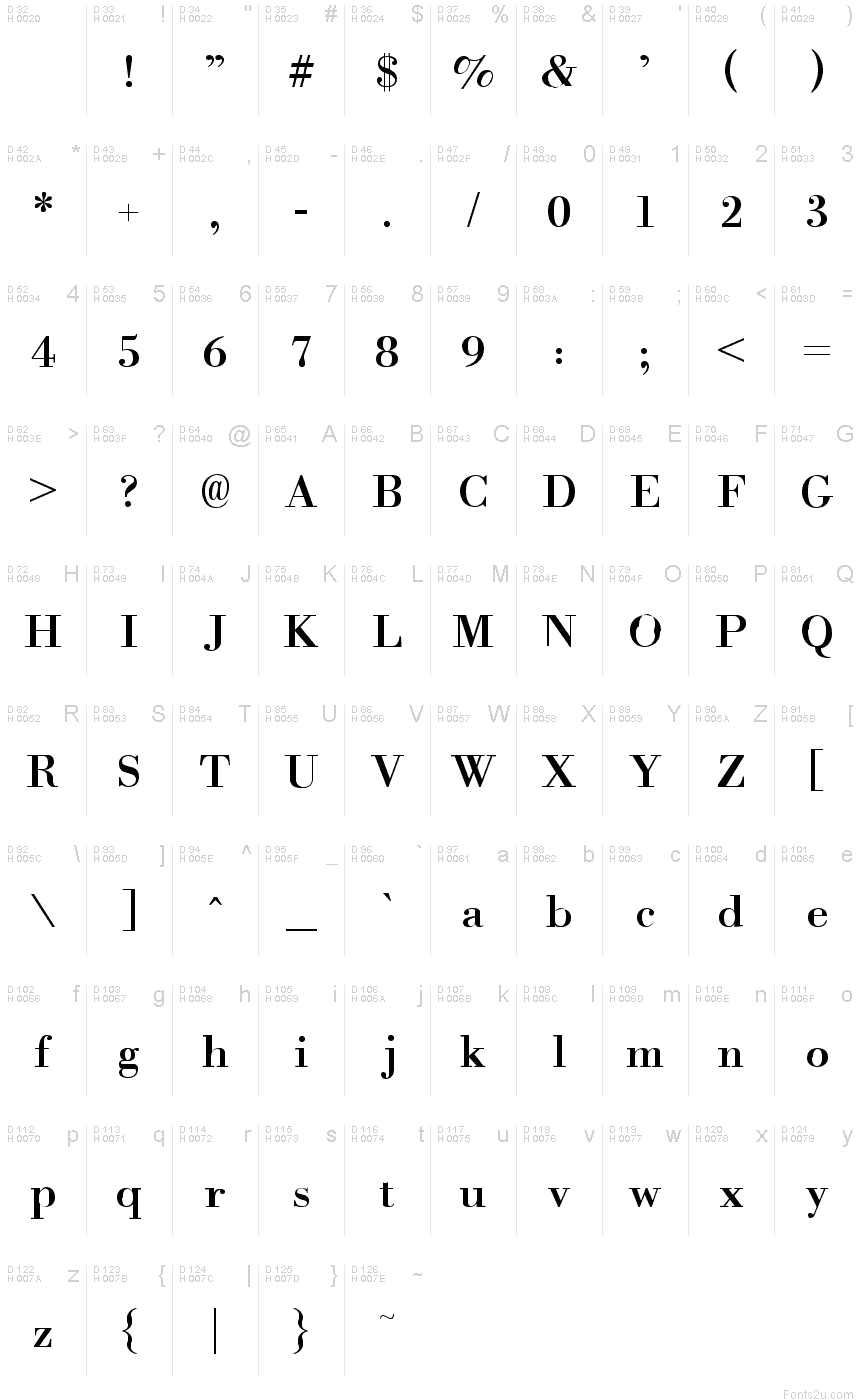
Orgreave by Roger White is a free Didone-style serif with dramatic thick-and-thin strokes, broad rounded forms, crisp hairlines, and finely cut serifs. Ball-like endings soften the otherwise formal silhouette.
Editorial covers are a particularly good fit, since the sharp contrast and generous curves have the poised formality associated with luxury fashion and independent arts publishing. The same lettering suits fragrance packaging, gallery posters, and boutique branding, where an oversized initial can double as a simple monogram or frame for photography.
Orgreave